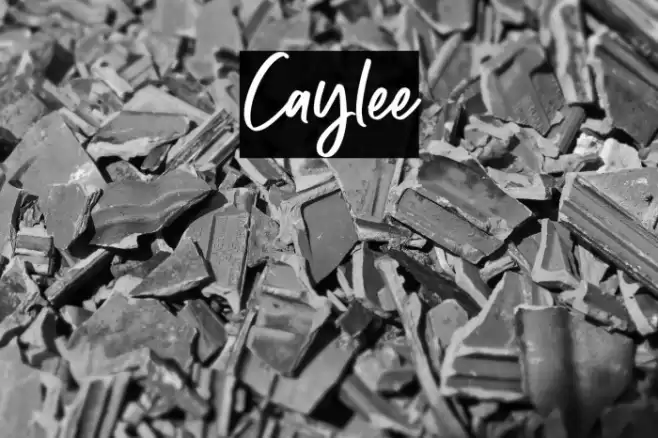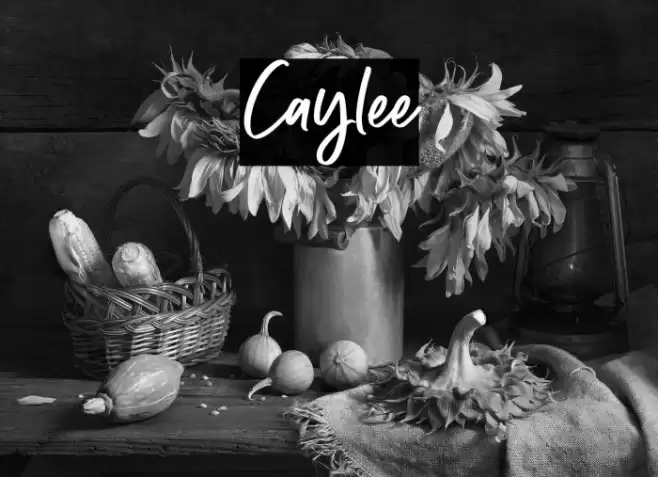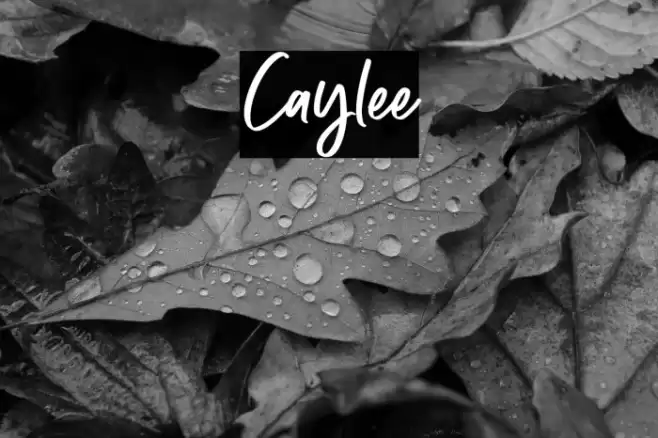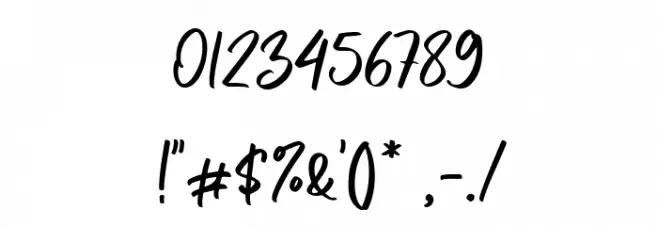
Caylee Font
Caylee Description
This font exudes a lively and expressive character, reminiscent of handwritten script. The letters are fluid and connected, with a natural flow that mimics the movement of a pen on paper. The uppercase letters are bold and slightly larger, providing a strong presence, while the lowercase letters maintain a consistent rhythm and elegance. The numerals and special characters are crafted with the same attention to detail, ensuring a cohesive look across all text elements. The overall appearance is both casual and sophisticated, making it suitable for a variety of design contexts.
A lively, handwritten script font with fluid, connected letters from Regular fonts.
- Proposed Projects: Ideal for wedding invitations, greeting cards, branding, and social media graphics.
- Use Case: Logos, Headlines, Invitations